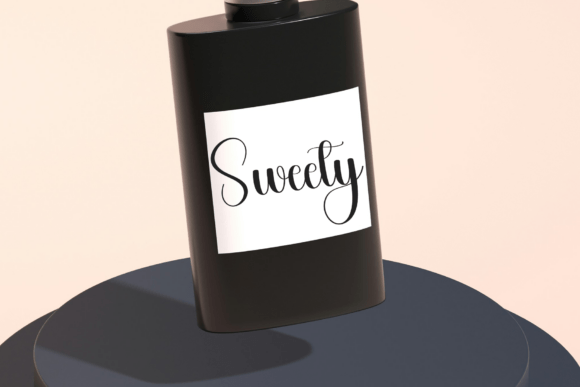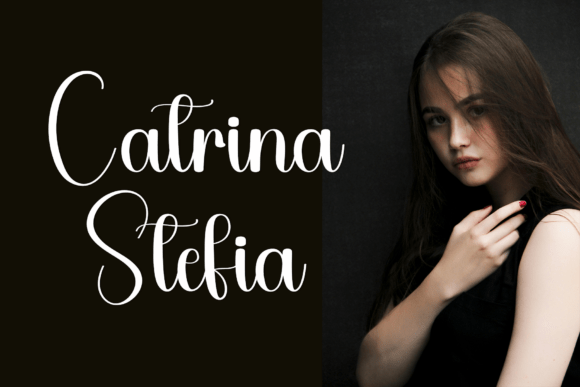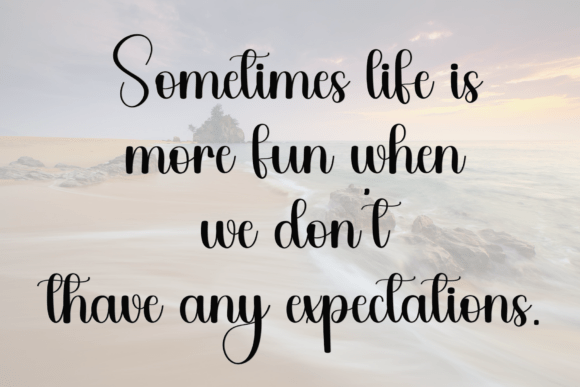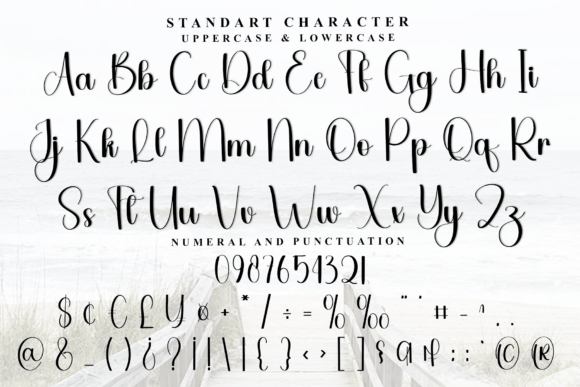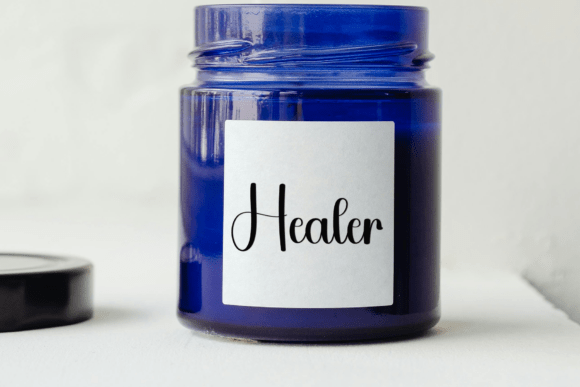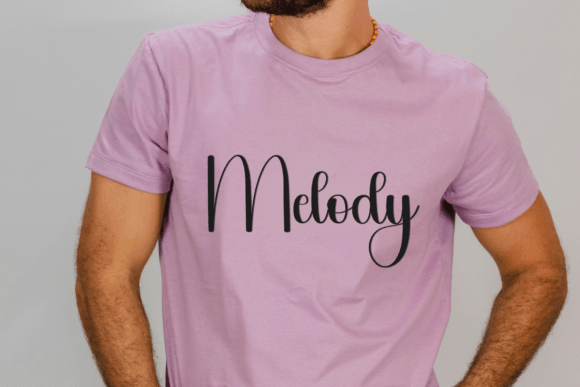
The Sweet Spot: Discovering Delight Candy Font
I still remember the design project that led me to Delight Candy Font. I was working on a branding project for a new candy store, and I was struggling to find the perfect font that captured the playful, sweet, and stylish vibe of the brand. That’s when I stumbled upon Delight Candy, and it was love at first sight! ✨
- ✨ The cheerful and handwritten script style that instantly adds a touch of sweetness to any design
- ✅ The perfect blend of playfulness and sophistication, making it suitable for various design projects
- 🌈 A wide range of OpenType features, glyphs, and stylistic alternates that offer endless creative possibilities
- 📦 Great for packaging, candy branding, or playful product names, as the font name suggests
While Delight Candy Font is an amazing addition to any design project, there are a few things to keep in mind: ⚠️
- 🤔 Some of the more intricate swashes and flourishes might not work well at smaller font sizes
- ⚠️ As with any script font, it may not be the best choice for body text or lengthy paragraphs
The Designer Inspiration Behind Delight Candy Font
Delight Candy Font was designed with the intention of capturing the whimsical and delightful world of candies and sweets. The designer aimed to create a font that would bring a smile to people’s faces and add a touch of playfulness to any design project. With its cheerful and handwritten script style, Delight Candy Font is sure to inspire creativity and sweetness in any design.
Q: What type of projects is Delight Candy Font best suited for?
A: Delight Candy Font is perfect for packaging, candy branding, or playful product names, as well as any design project that requires a touch of sweetness and whimsy.